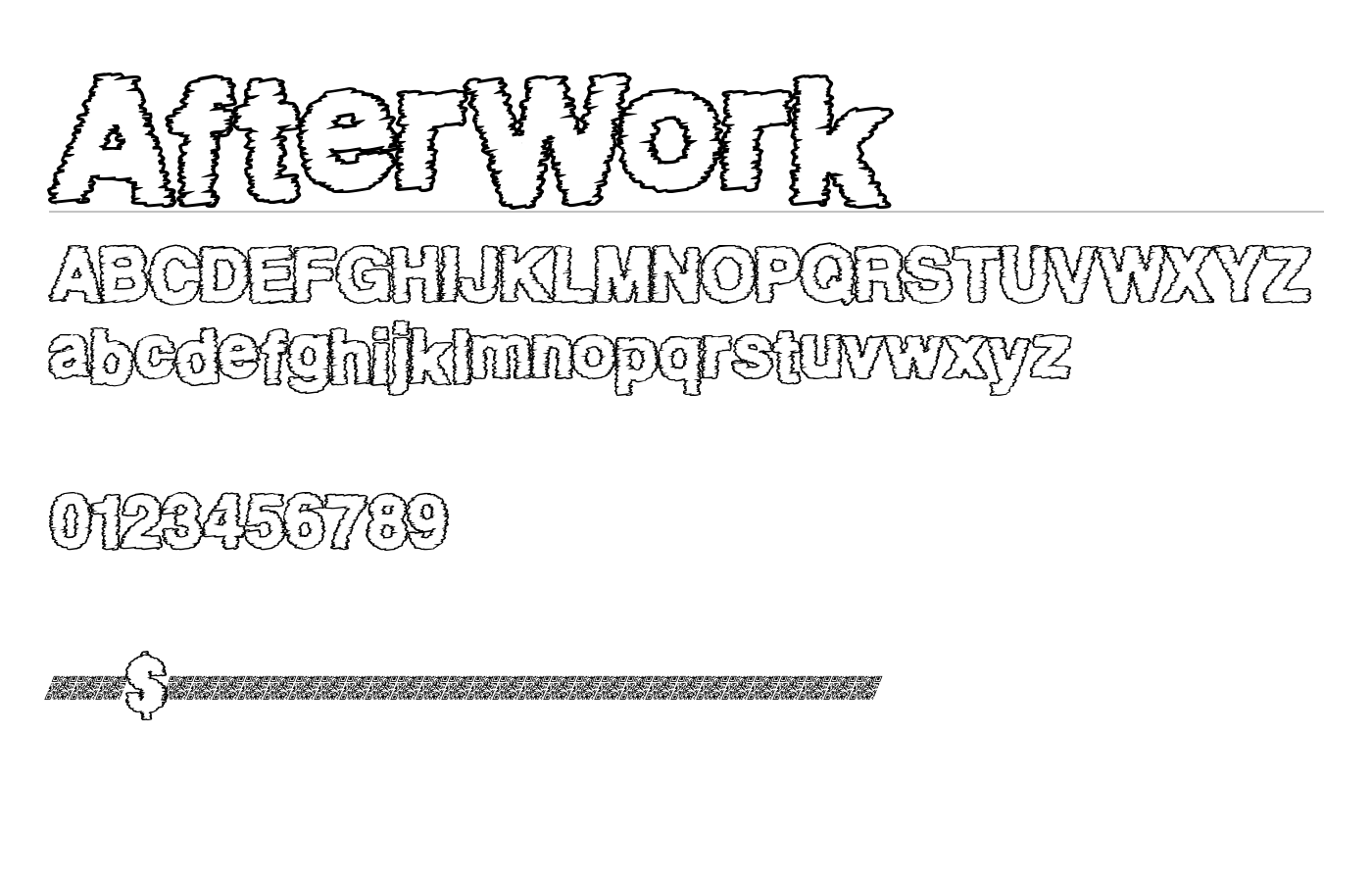
AfterWork is a bold, playful sans serif font with a unique, jagged outline that gives it a textured, hand-crafted feel. Its chunky letterforms and consistent weight make it great for eye-catching headlines, logos, and creative projects that want to convey energy and fun. This font works best in informal designs where a lively and distinctive style is needed.
AfterWork Font
About AfterWork Font